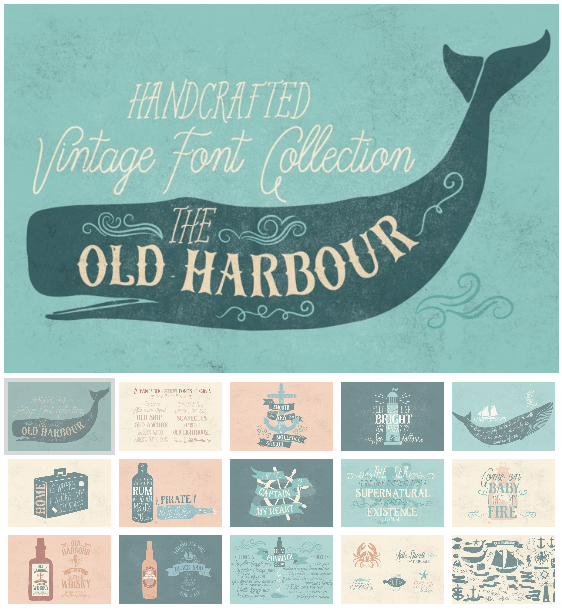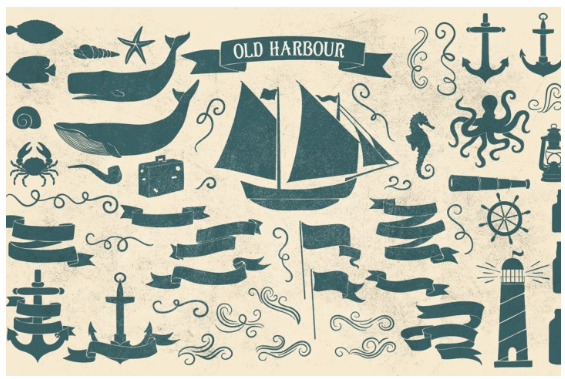
Font Frenzy: Old Harbour Vintage Font Collection
The Old Harbour is a font collection of 12 hand drawn fonts by Anastasia Dimitriadi and inspired by the vintage hand lettered signage, the old bottles’ labels and the aesthetic of old school tattoos. The fonts can work together in endless combinations, to create beautiful vintage designs for apparel, logos, labels, cards, posters or any merchandise product you can imagine.
Collection fonts:
- Blue waves
- Blue waves striped
- Captain’s pipe
- Captain’s pipe Sans
- Sailor’s tattoo
- Sailor’s tattoo Sans
- Old Ship
- Old Anchor
- Old Lighthouse
- Seashells
- Starfish
- Old Harbour dingbats
Ohhh these will take you all kinds of fun places … lighthouse, anchors and captain’s wheel for graduation, whale tail for bon voyage, sailing ship for new job and more for any adventure on the horizon!
the nautical, breezy whimsy of the fonts that is.